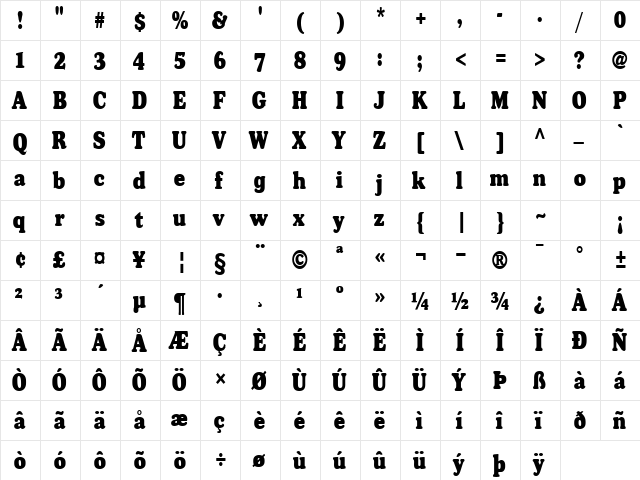
BroadsideCondensed Normal
Design Context for BroadsideCondensed Typeface
BroadsideCondensed takes a measured approach to typography — its balanced proportions and neutral character make it a reliable workhorse for both digital and print work. The condensed width makes it efficient for tight spaces without sacrificing legibility.